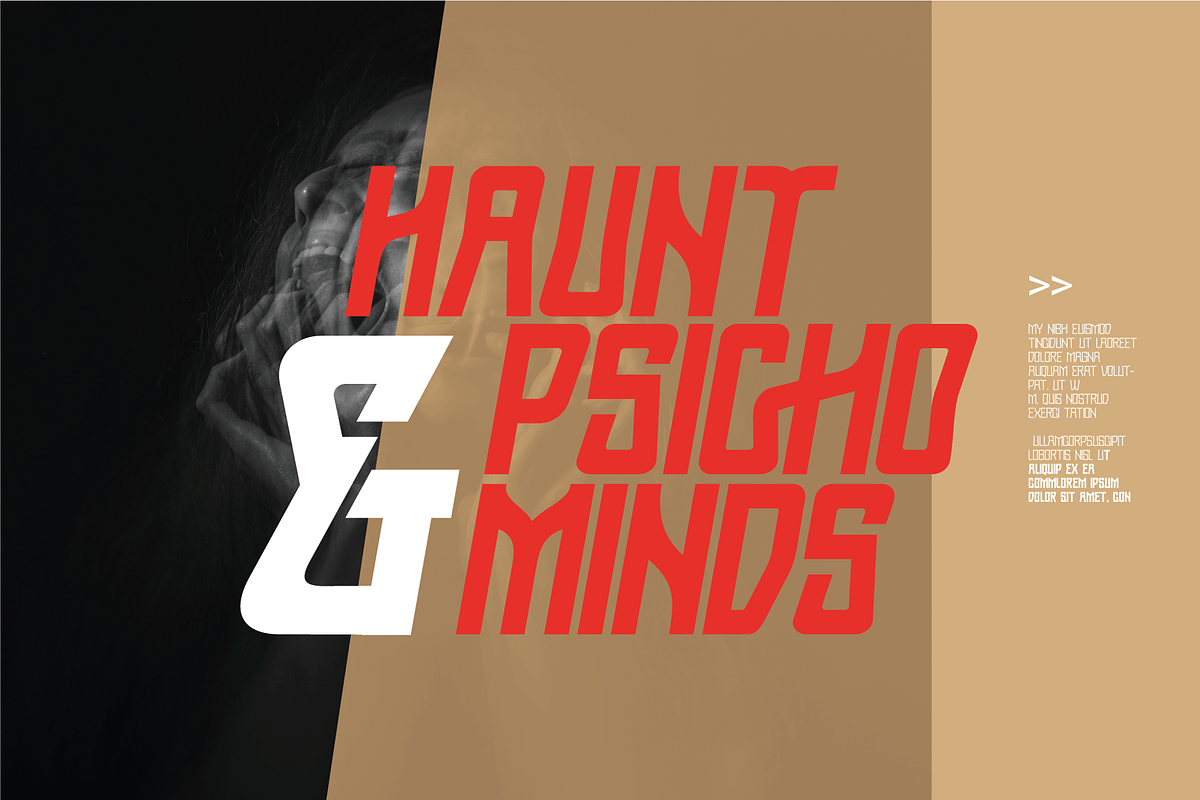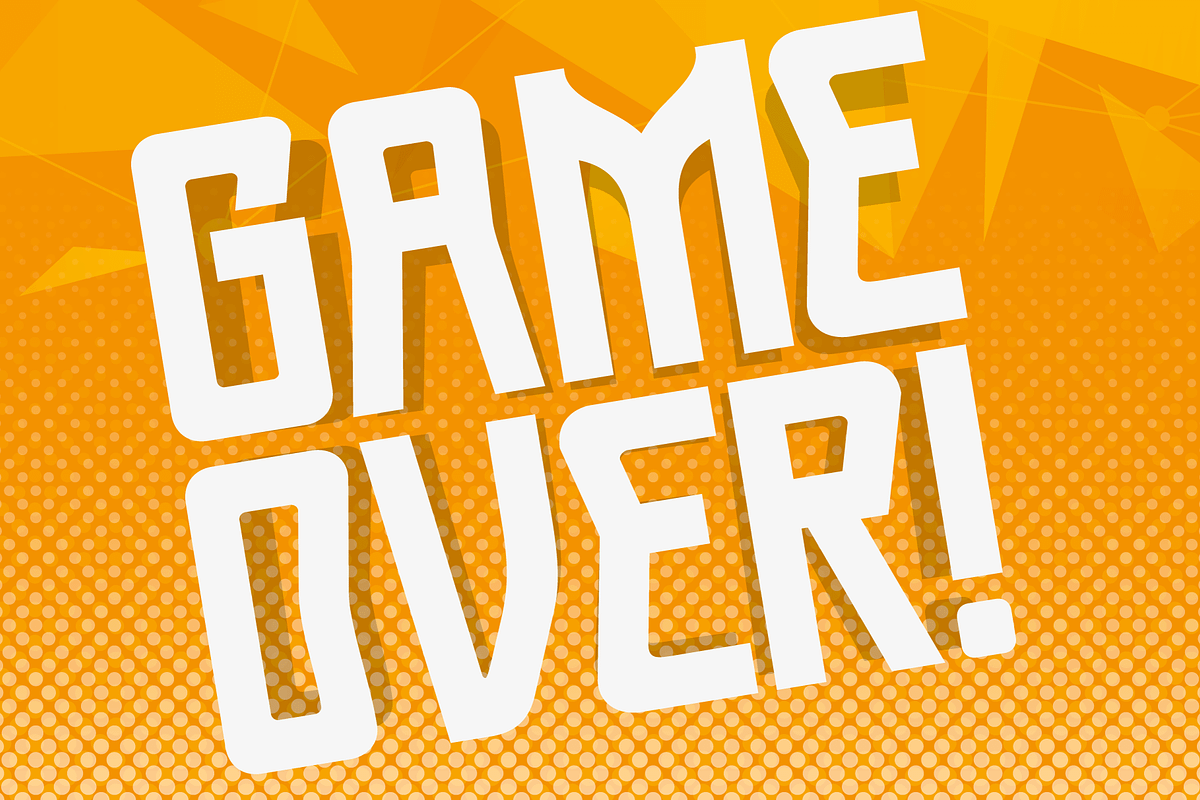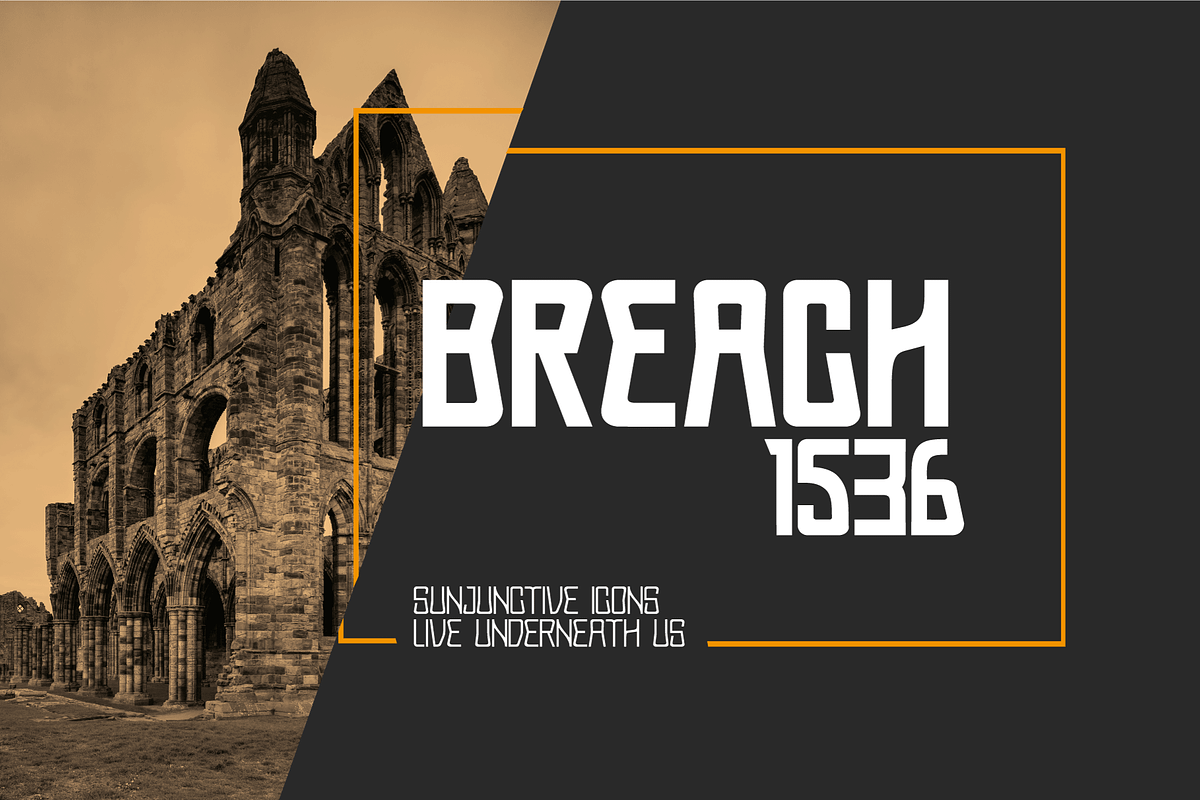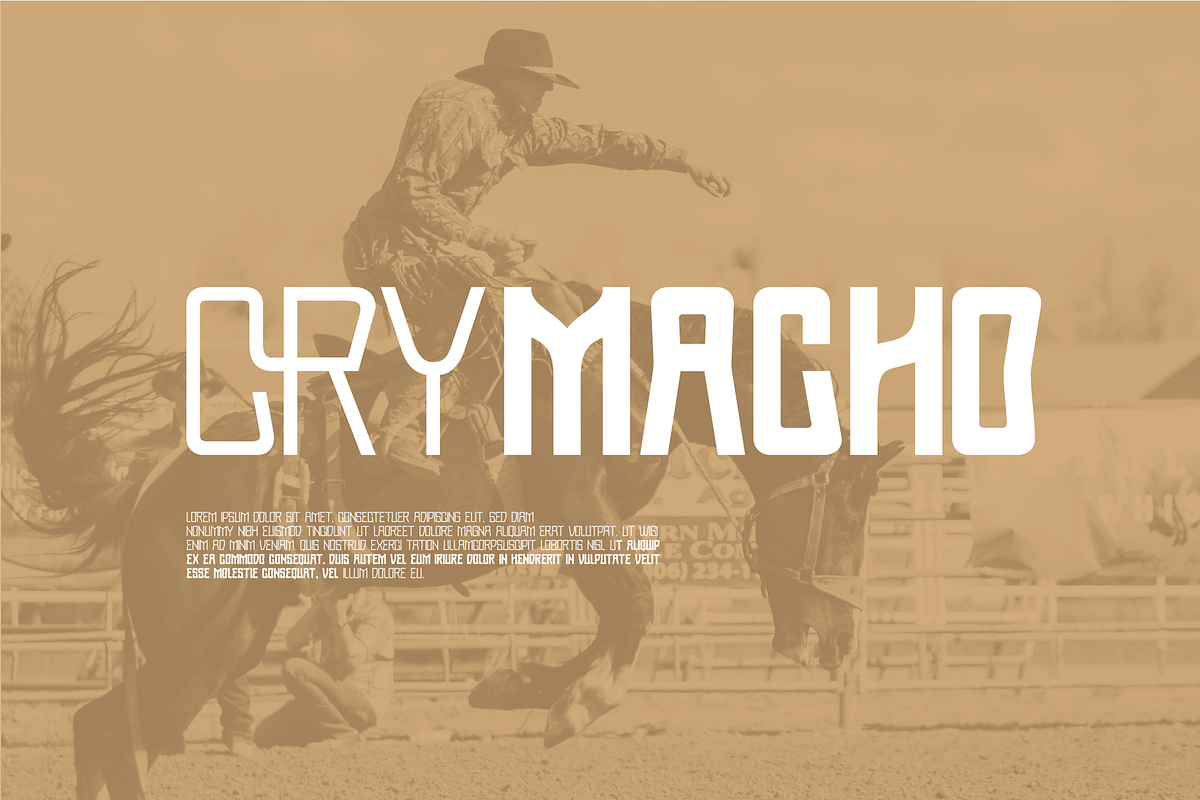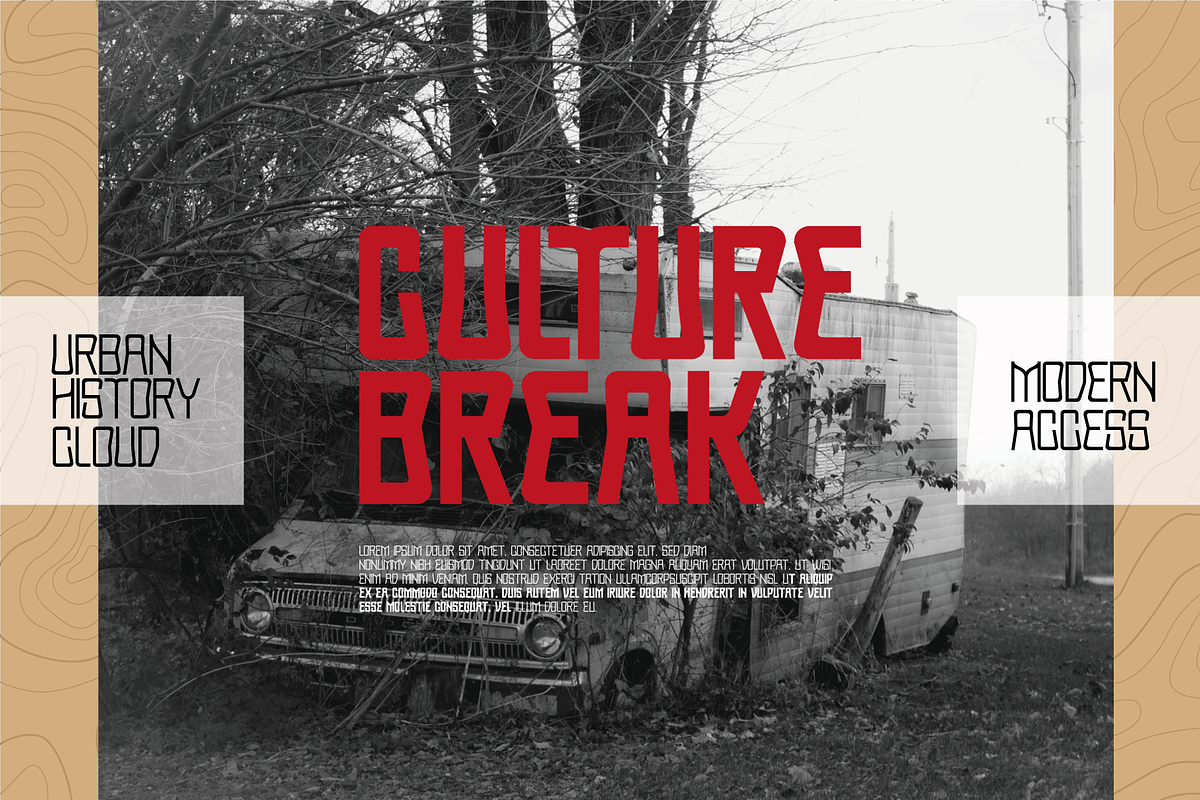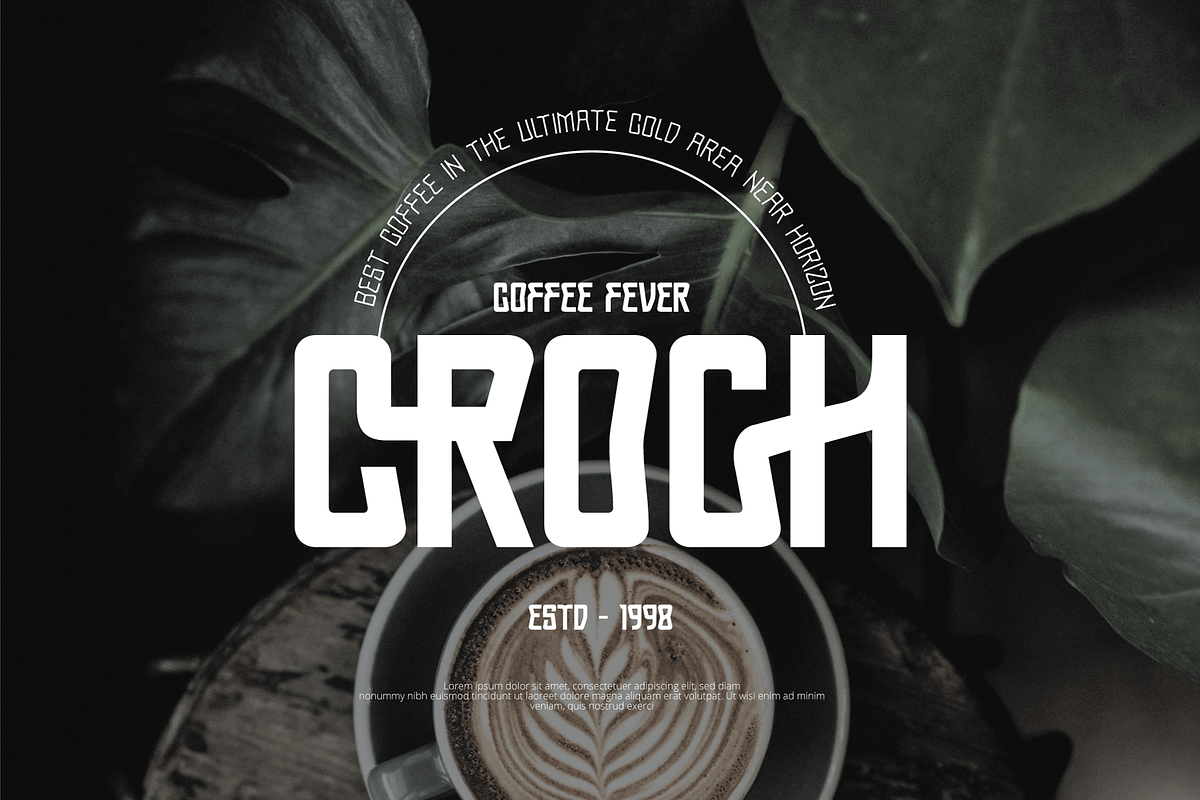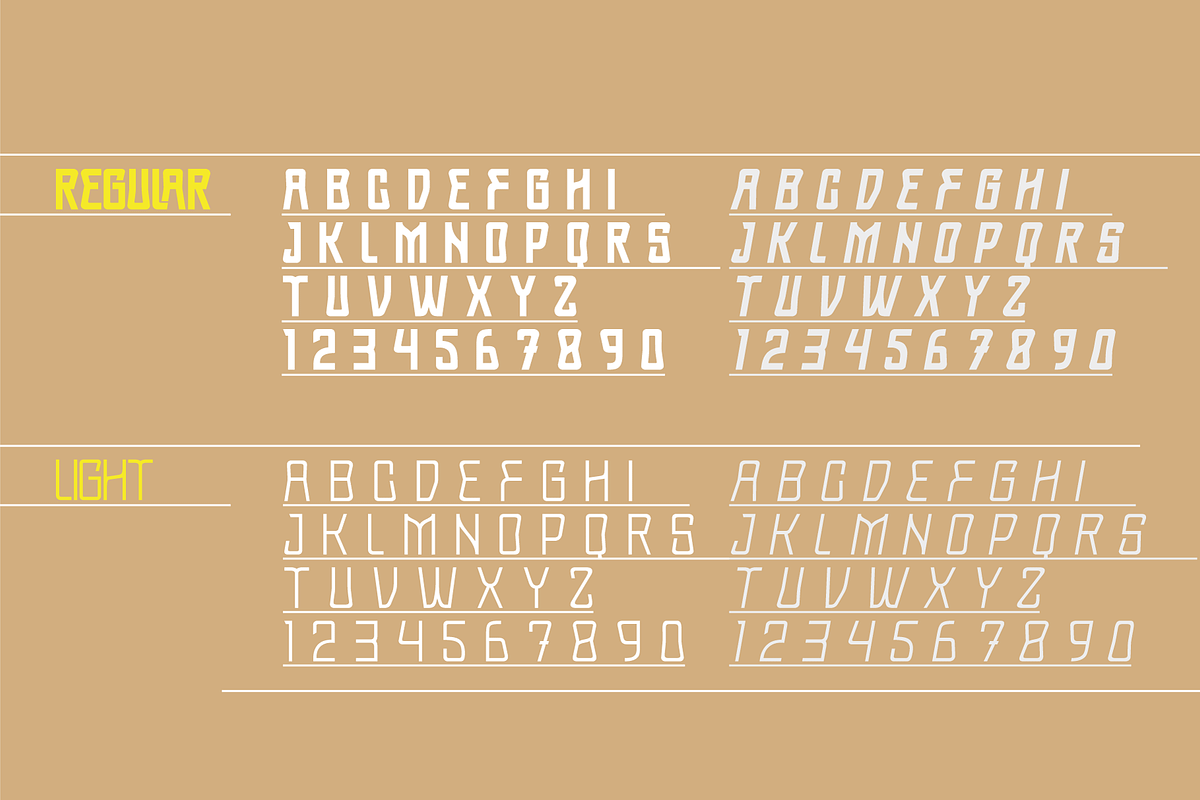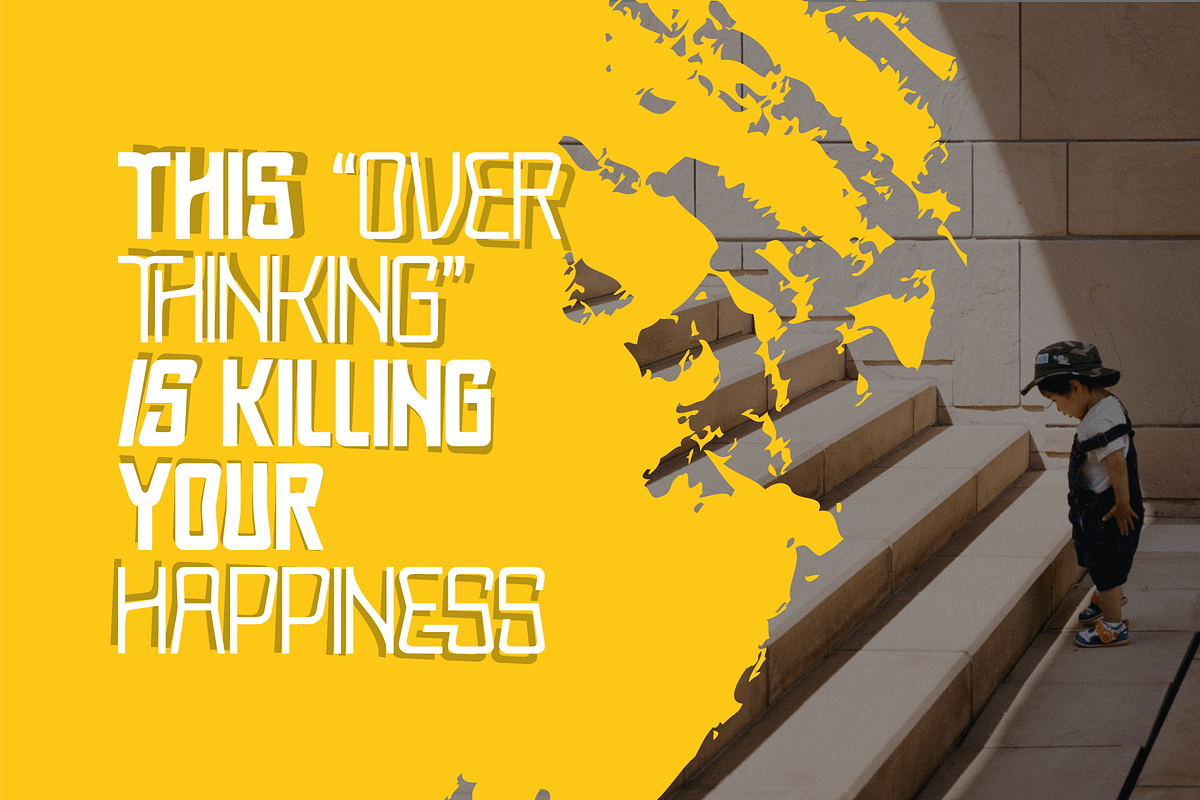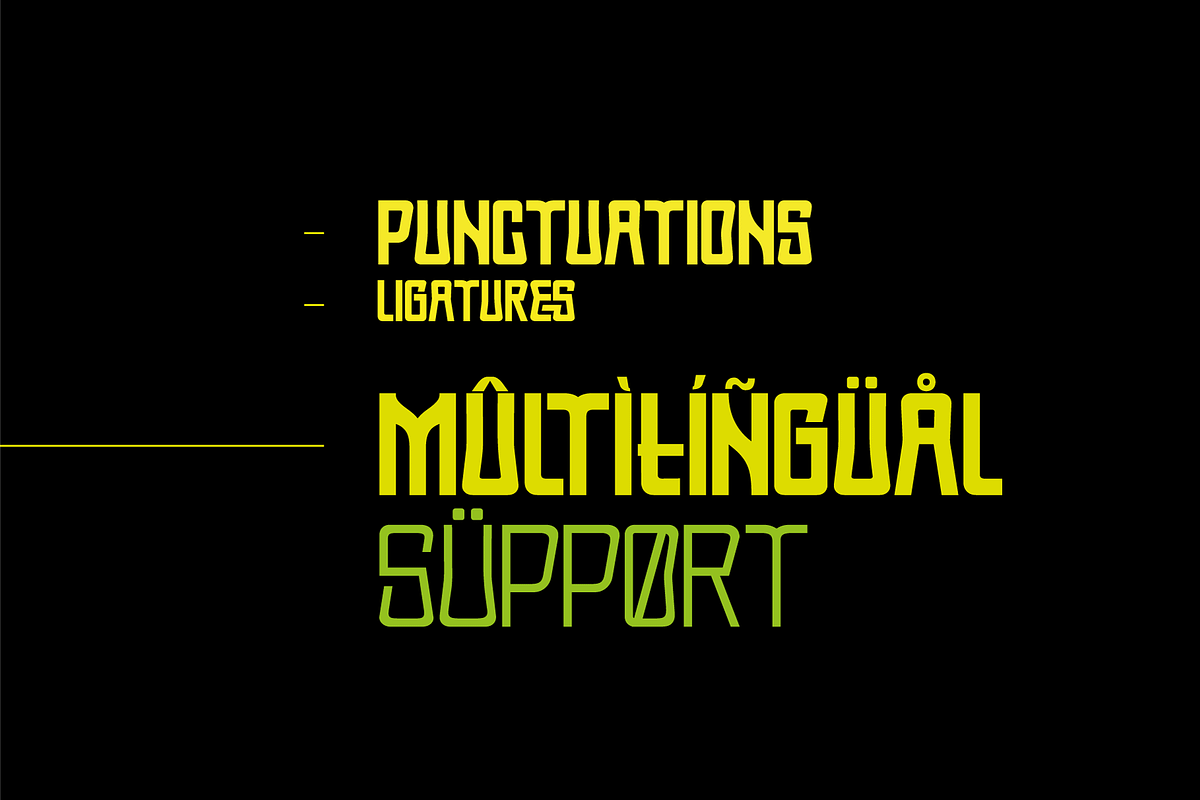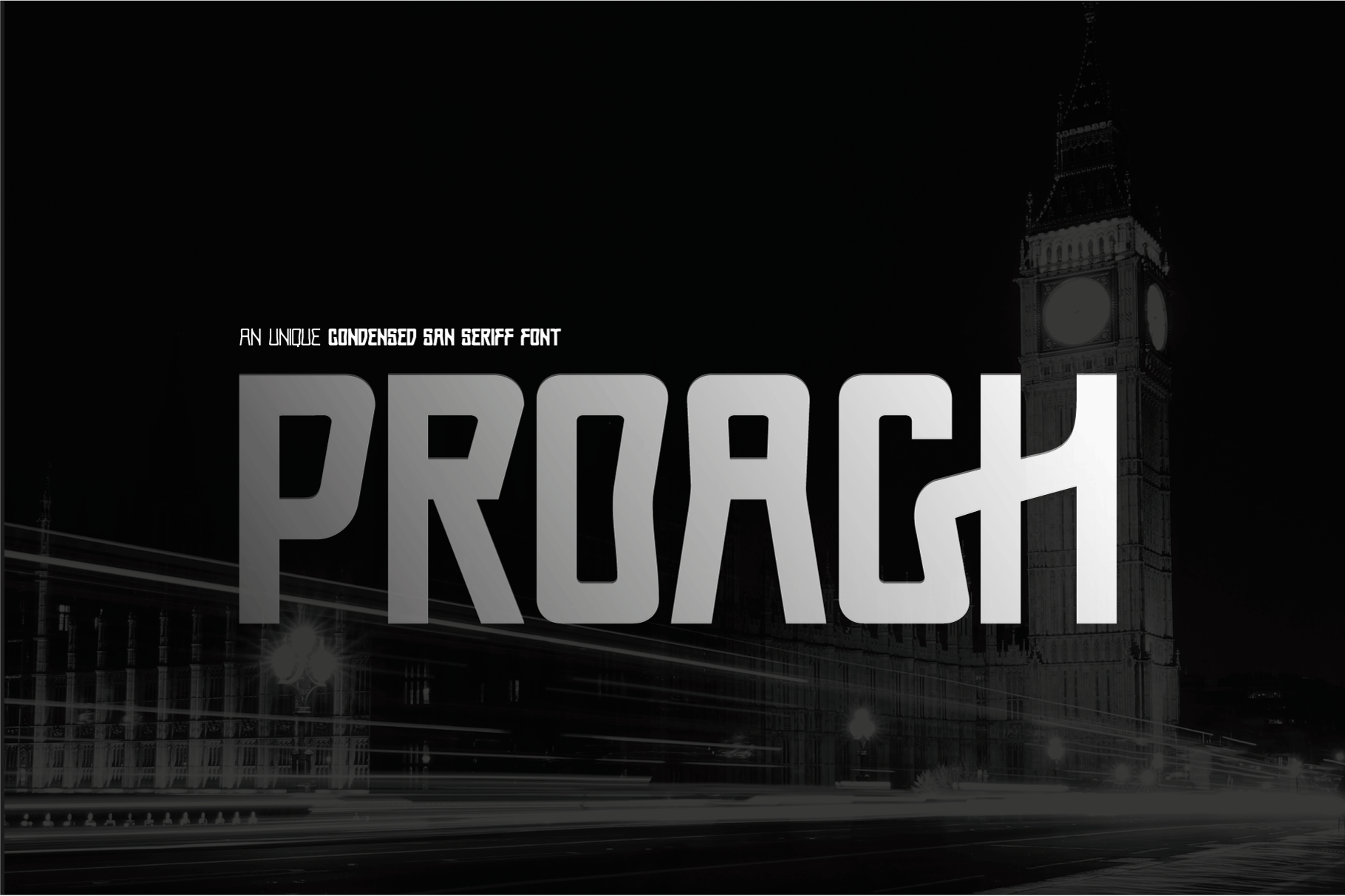
Proach Font
Poarch is a clean and modern condensed font, the font well designed as a sans serif font with all caps. It has round tip angle and different style as a sans font in common. The font is perfect for any project such as Brochure/Magazine Header, Logo Tagline, Flyer Titles and it also can be a paragraph text font.
- Regular, Light and Italic Version
- Modern Look